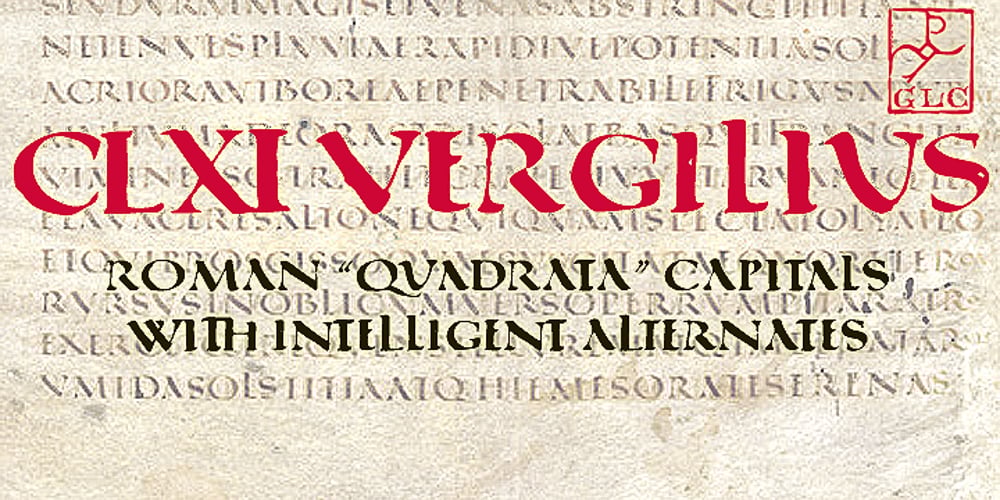
161 Vergilius Font Family was designed by published by GLC. 161 Vergilius contains 1 styles and family package options. This font was inspired by the rare manuscript Roman Quadrata used by an unknown scribe to inscribe a copy of the Roman poet Virgil’s GEORGICS, somehwere around 161 to 180 AD. Only a few sheets have survived, now preserved by different libraries around the world. In creating this font, we have adapted it for contemporary users, making differences between U and V; I and J (which made no difference at all to ancient Latin scribes) and naturally adding the glyphs for Thorn, Oslash, Lslash, W, Y, as well as the usual accented characters and punctuation, none of which existed at the time. Only capitals are present in the original; but we have provided alternates: so alternating each character A-Z/a-z will give a pleasant appearance of manual script. We have added the Roman numerals “I V X L C D M” in the OTF/TTF versions usable as “Old Style Numerals” alternates.